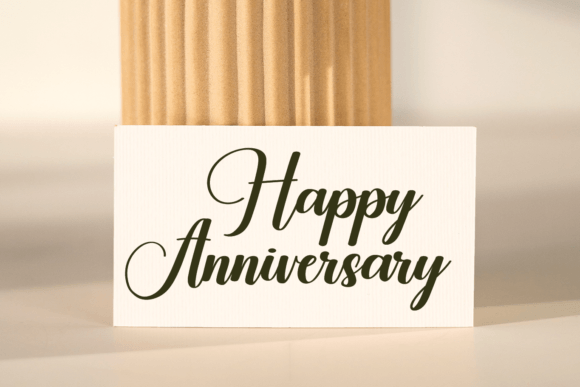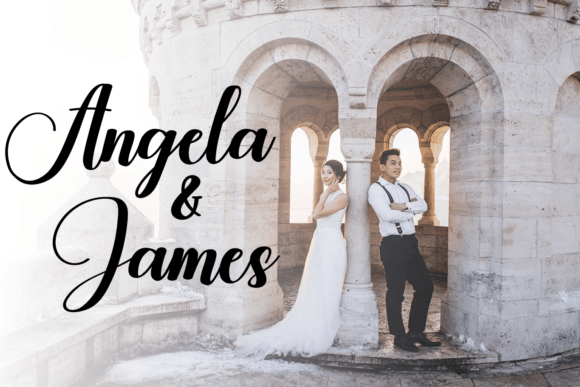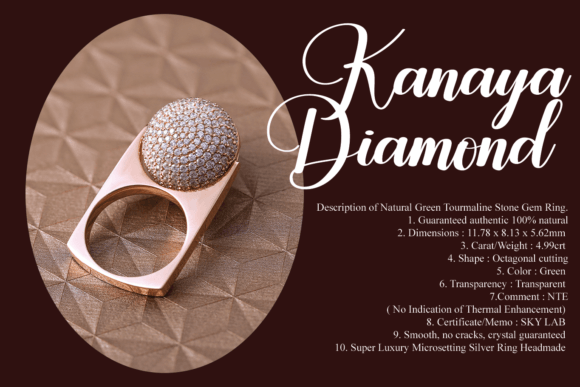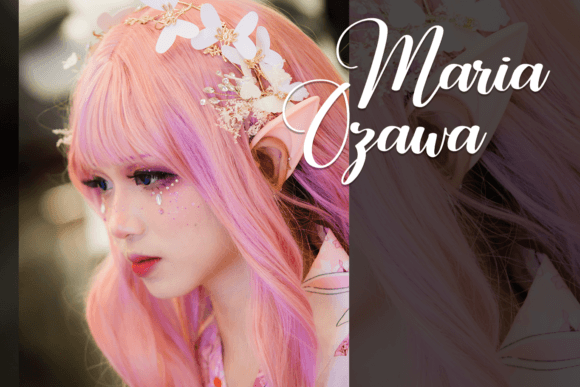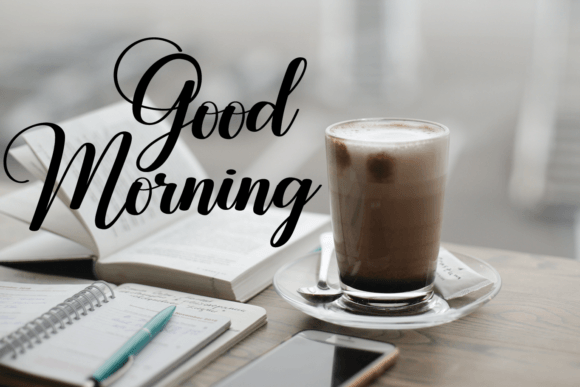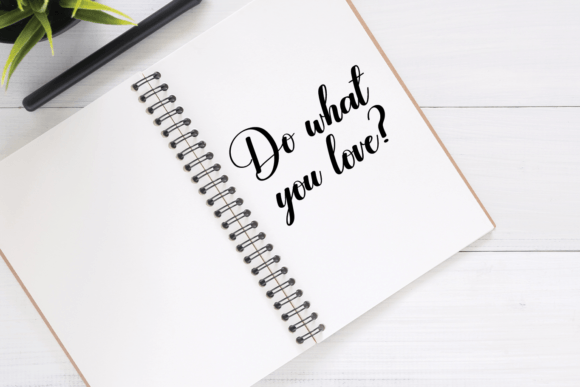
Cosplay Font: Elevate Your Designs with Elegance and Flair
Are you a designer, crafter, or creative enthusiast looking for a font that can add a touch of sophistication and whimsy to your projects? Look no further than Cosplay Font, a delicate, elegant, and flowing handwritten font that’s sure to bring your ideas to life.
The Beauty of Cosplay Font
Cosplay Font is a stunning example of handwritten typography, with beautifully crafted characters that exude elegance and refinement. Each letter, number, and symbol is carefully designed to be well-balanced and visually appealing, making it perfect for a wide range of design applications.
One of the standout features of Cosplay Font is its versatility. Whether you’re working on a logo, branding project, invitation, or social media graphic, this font is sure to complement your design with its unique blend of sophistication and playfulness.
What Makes Cosplay Font So Special?
So, what sets Cosplay Font apart from other fonts on the market? Here are just a few reasons why designers and crafters are falling in love with this beautiful font:
- Elegant and Refined: Cosplay Font has a distinctly elegant feel, making it perfect for designs that require a touch of sophistication.
- Handwritten Charm: The font’s handwritten nature gives it a warm, personal feel that’s perfect for adding a human touch to your designs.
- Well-Balanced Characters: Each character in Cosplay Font is carefully crafted to be well-balanced and visually appealing, ensuring that your designs look polished and professional.
- Versatile: Cosplay Font is suitable for a wide range of design applications, from logos and branding to invitations and social media graphics.
How to Use Cosplay Font in Your Designs
- Logos and Branding: Use Cosplay Font to create a unique and memorable logo that reflects your brand’s personality and style.
- Invitations and Stationery: Add a touch of elegance to your invitations, greeting cards, and other stationery with Cosplay Font.
- Social Media Graphics: Use Cosplay Font to create eye-catching social media graphics that showcase your brand’s personality and style.
- Crafting and DIY Projects: Cosplay Font is perfect for crafters and DIY enthusiasts who want to add a personal touch to their projects, from scrapbooking to knitting patterns.
Tips for Getting the Most Out of Cosplay Font
- Experiment with Different Sizes: Cosplay Font looks great in a variety of sizes, so don’t be afraid to experiment to find the perfect fit for your design.
- Pair with Other Fonts: Try pairing Cosplay Font with other fonts to create a unique and visually appealing combination.
- Use in Combination with Images: Cosplay Font looks great when paired with images, so try using it to add a touch of elegance to your graphics and illustrations.